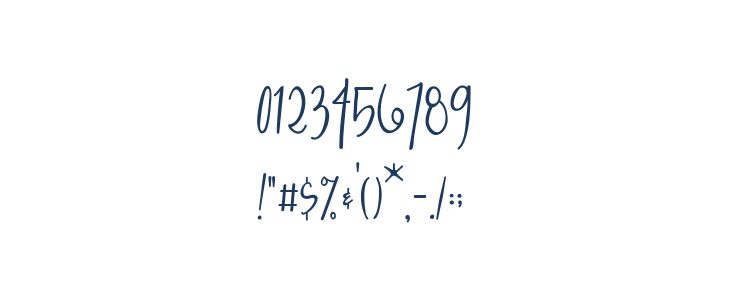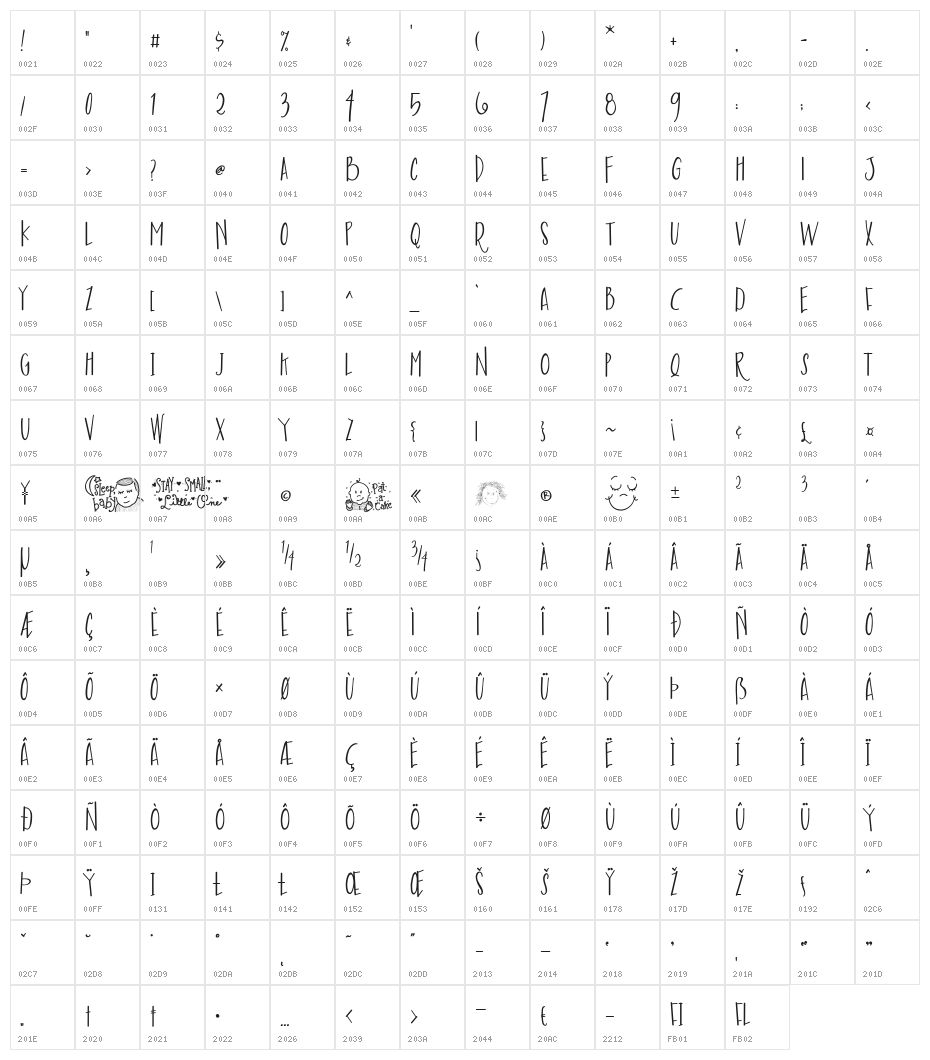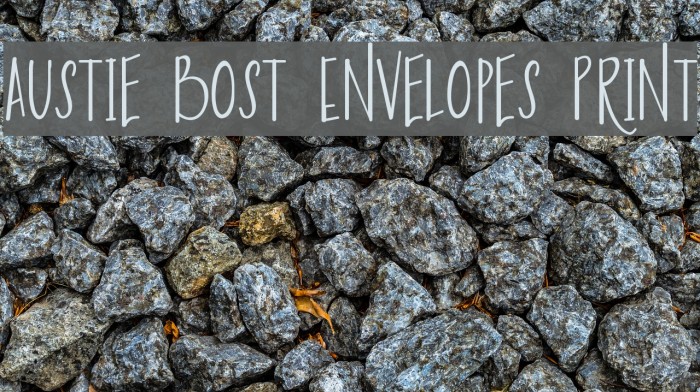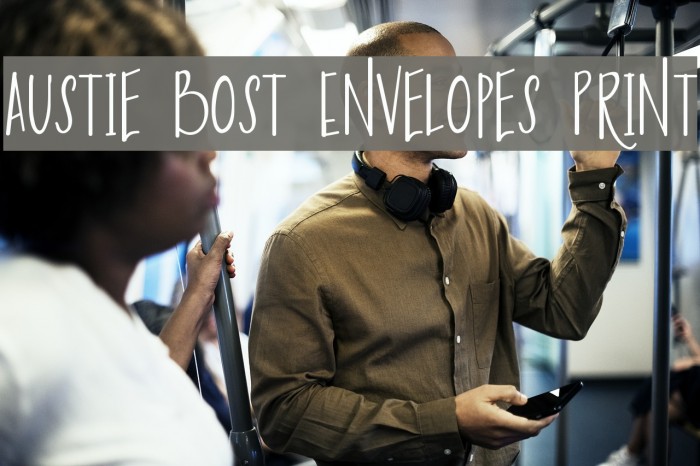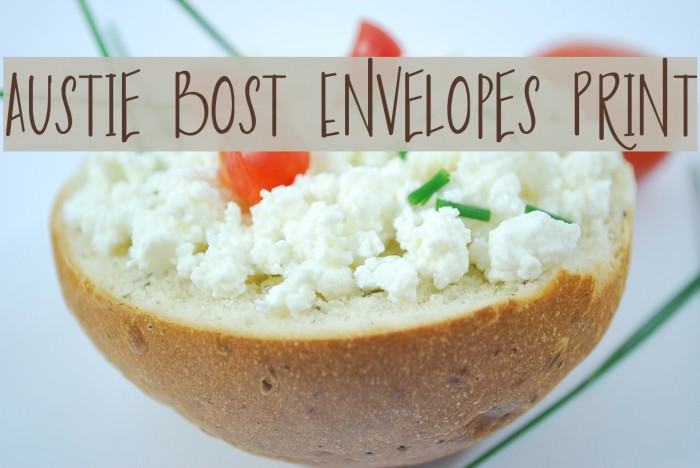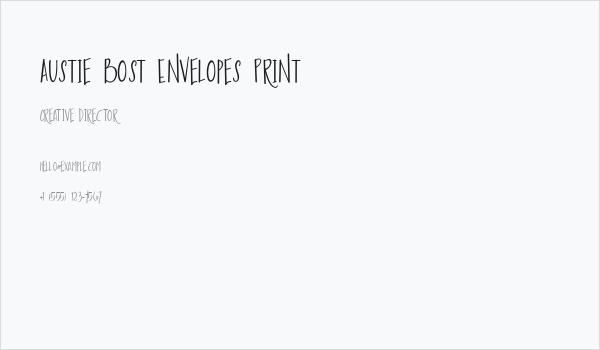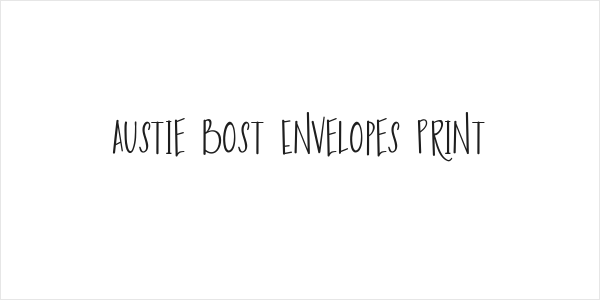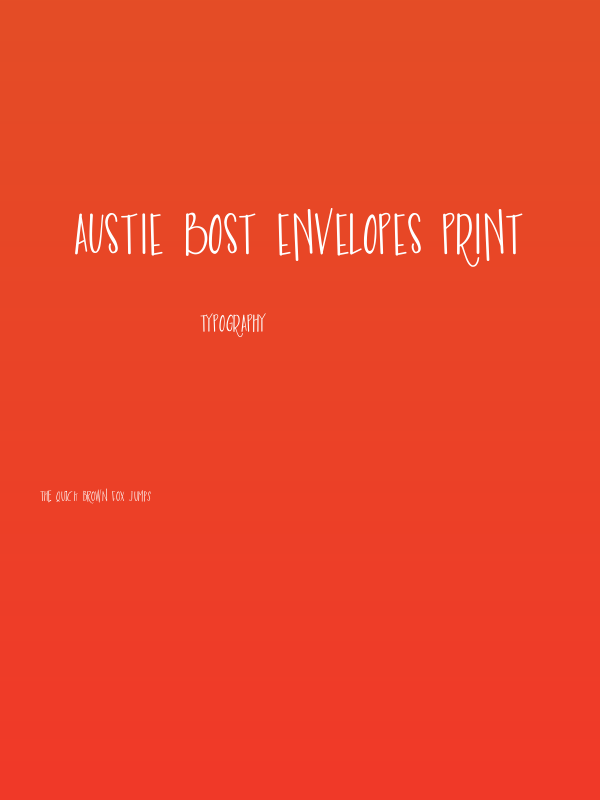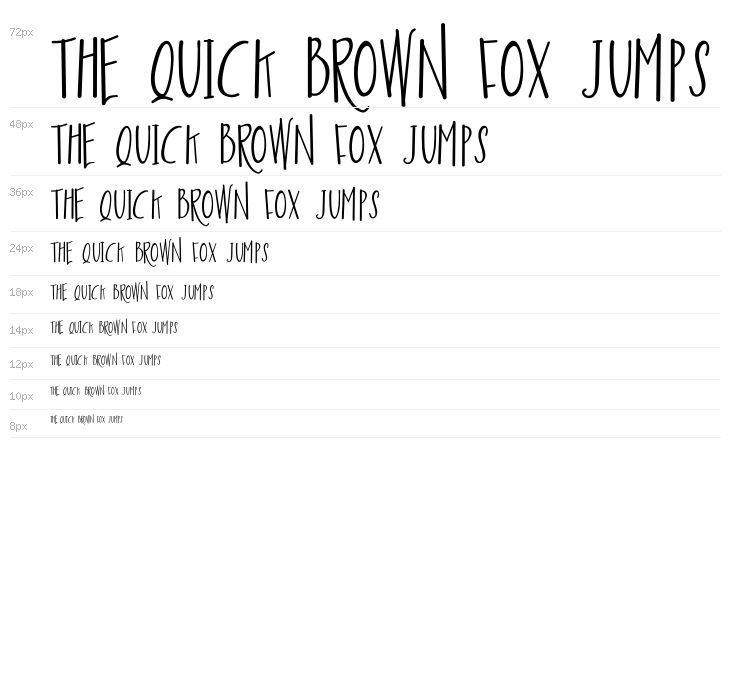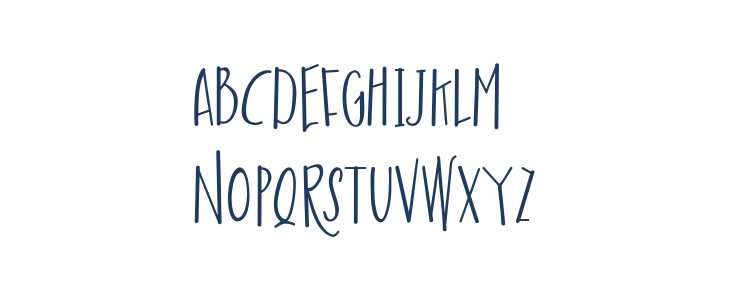
Austie Bost Envelopes Print Font
Austie Bost Envelopes Print Description
This font features a playful and whimsical handwritten style, characterized by its tall, narrow letters with a slight slant. The strokes are consistent in thickness, giving it a clean and uniform appearance. The uppercase letters are slightly taller than the lowercase, adding to its quirky charm. The numbers and special characters maintain the same playful aesthetic, making it versatile for various uses. The overall look is casual yet stylish, perfect for projects that require a personal touch.
| Use Case | Headlines, Invitations, Greeting Cards |
| Proposed Projects | Ideal for greeting cards, invitations, children's books, and playful branding projects. |